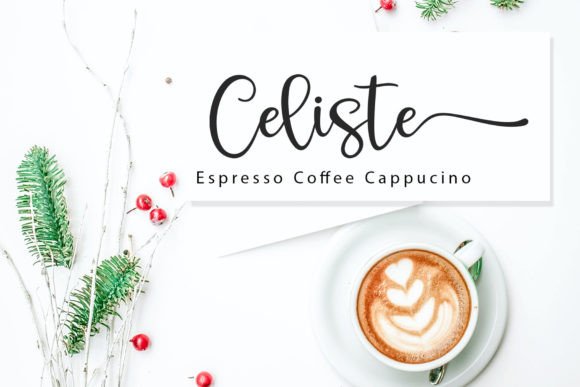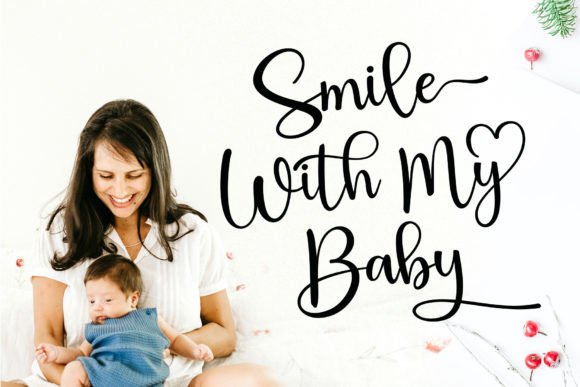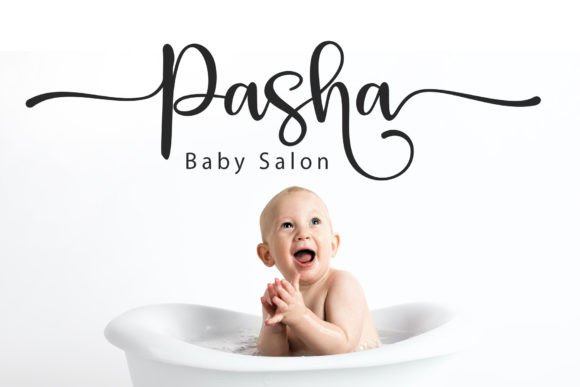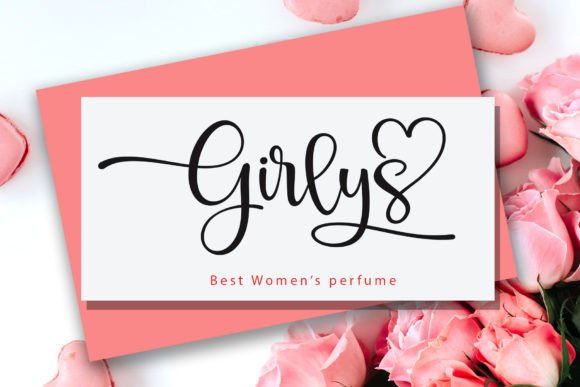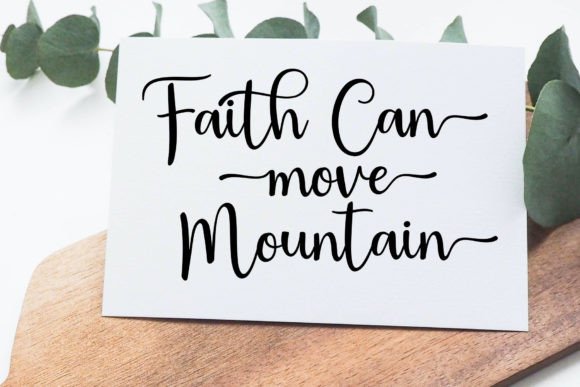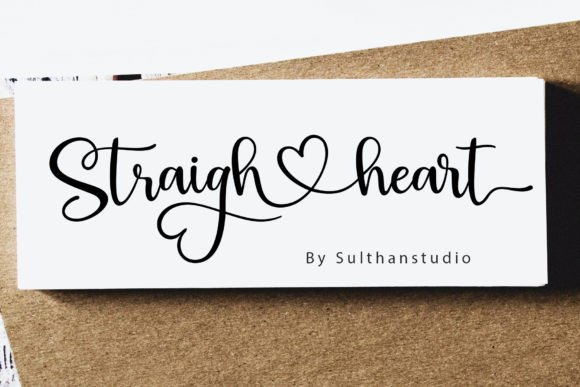
The Baby Story Font: A Sweet Addition to Your Design Arsenal
Have you ever been in the middle of a design project, and suddenly, you just can’t seem to find the right font? I recall a particularly frustrating moment when I was working on a baby shower invitation, and my client specifically asked for a font that captured the essence of a “baby story.” The design had to be playful, heartfelt, and utterly charming. After scouring the internet for what felt like hours, I stumbled upon the Baby Story Font, and it was love at first sight! 💕
A Personal Review: What I Love and What to Watch Out For
- ✅ The Baby Story Font boasts a beautiful, handwritten script style that’s perfect for creating emotional connections with your audience.
- ✅ Its unique heart details, such as connected hearts or hearts on each end of the letters, add a touch of whimsy and playfulness.
- ✅ The font comes with a range of OpenType features, including glyphs and stylistic alternates, which give you plenty of creative freedom.
While the Baby Story Font is undoubtedly a gem, there are a few minor things to keep in mind:
- 🤔 Some of the more intricate details might not display correctly at very small font sizes.
- ⚠️ As with any script font, readability can be an issue if you’re using it for body text; it’s best suited for headings or short paragraphs.
The Inspiration Behind the Baby Story Font
The Baby Story Font was designed with one goal in mind: to capture the essence of a “baby story” in a beautiful, handwritten script. The designer aimed to create a font that would evoke feelings of warmth, love, and playfulness, making it perfect for projects related to babies, children, or special moments in life. The result is a font that’s both elegant and whimsical, with a unique charm that’s hard to find elsewhere.
Q: What makes the Baby Story Font unique?
A: The Baby Story Font stands out due to its beautiful, handwritten script style and the unique heart details that add a touch of whimsy and playfulness.
Q: Is the Baby Story Font suitable for body text?
A: While the Baby Story Font is stunning, it’s best suited for headings or short paragraphs. Its script style can be challenging to read in large blocks of text.
Q: Does the Baby Story Font come with OpenType features?
A: Yes, the Baby Story Font includes a range of OpenType features, such as glyphs and stylistic alternates, which give you plenty of creative freedom.
The Baby Story Font is a beautiful addition to any designer’s arsenal, especially those working on projects related to babies, children, or special moments in life. Its unique blend of elegance and playfulness makes it a versatile font that’s sure to capture the hearts of your audience. ✨